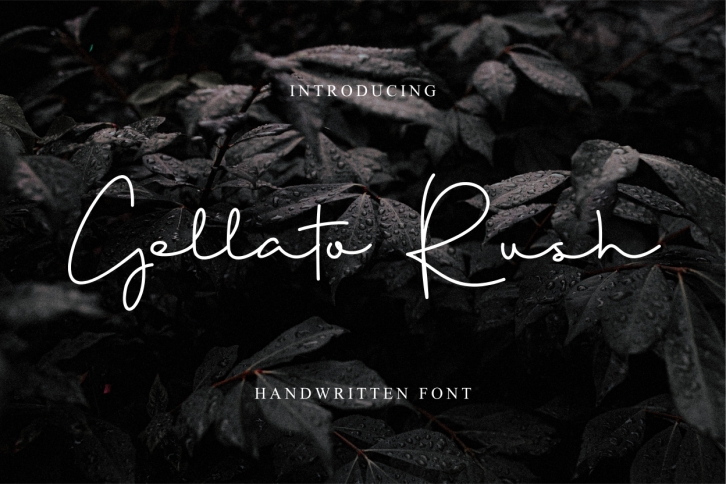
Gellato Rush Update is a trendy and unique font with an authentic style. It was designed by MENK and it's a great choice for creative people who need such a font. It was released on June 15, 2019 and the file size is 18.92 MB. Gellato Rush Update will add an organic vibe to any design idea!